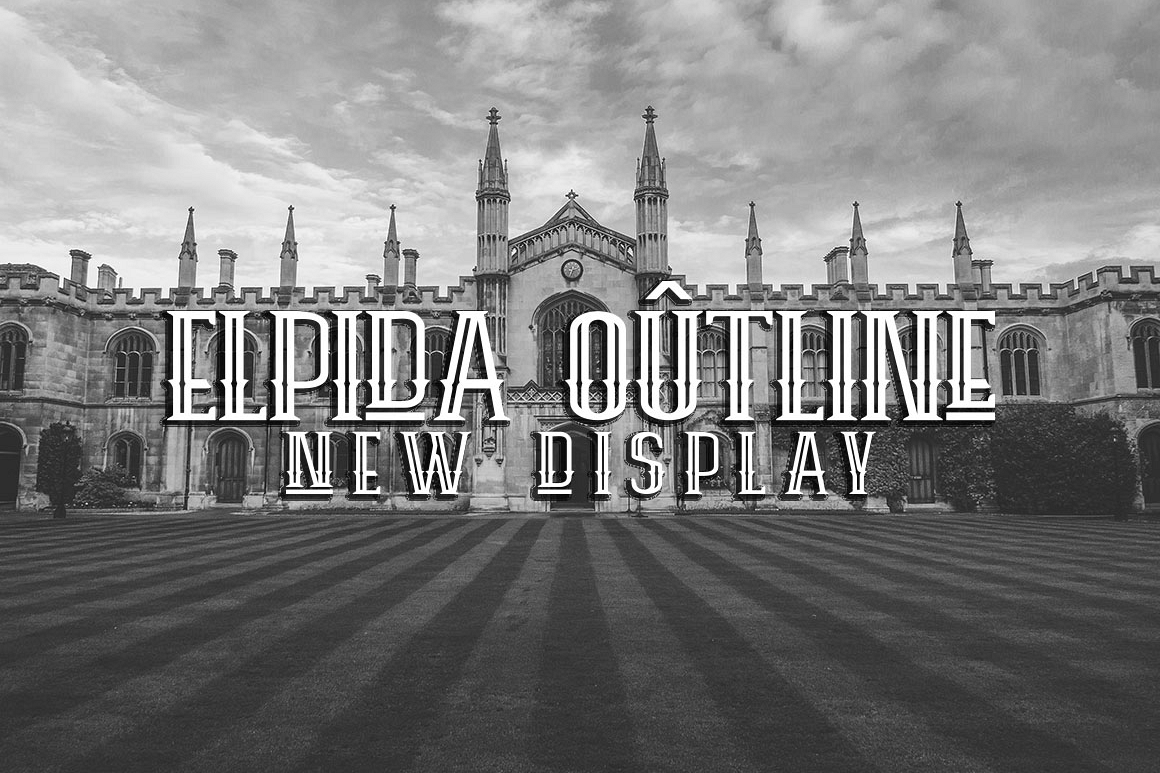
ELPIDA OUTLINE
New Present ELPIDA OUTLINE
ELPIDA OUTLINE is a Vintage, modern style Vintage, which was created to meet the needs of your next design project.
ELPIDA OUTLINE, Can used for various purposes. such as the title, logo, correspondence, letterhead, signage, labels, newsletters, posters, badges, t-shirt, etc.
Comes with upper and lowercase characters, large set of punctuation glyphs, numerals, and supports international languages. Stylistic alternates for several key Uppercase characters are also available, accessible in the Adobe Illustrator Glyphs panel.